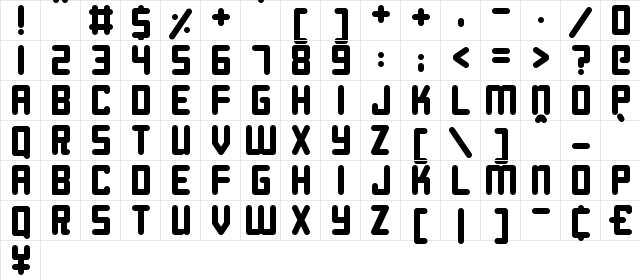
Roundish Regular
| Designer | Darrell Flood |
Design Context for Roundish Typeface
Roundish uses gentle rounded endings to create a warm, inviting typographic personality — less corporate than geometric sans, more refined than playful display fonts.
Well-suited to UI design, mobile interfaces, and any brand that wants approachability without sacrificing clarity.
Font Pairing: Pairs well with a rounded or humanist sans for body copy, maintaining the friendly tone without relying on Roundish to carry extended reading.
Pro Tip: Use Roundish for UI elements, app interfaces, and anywhere a friendly, approachable tone needs to be maintained without sacrificing clarity.